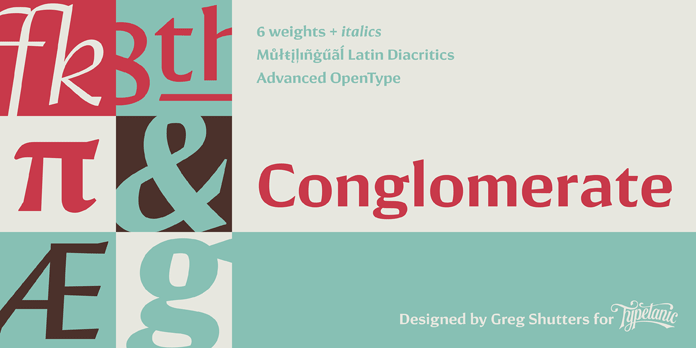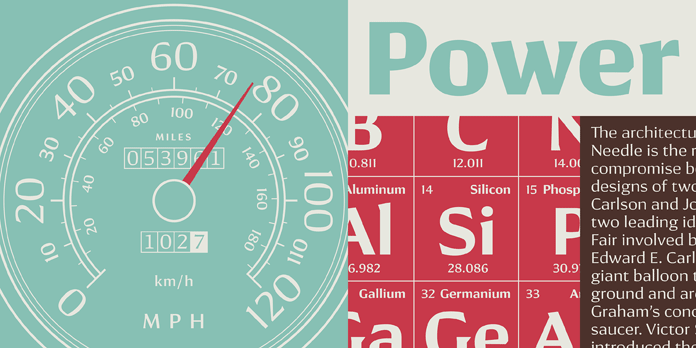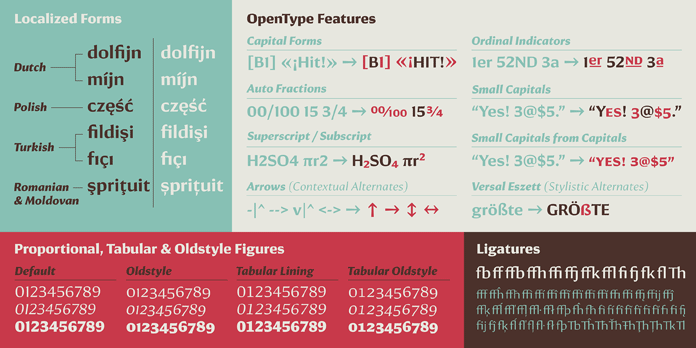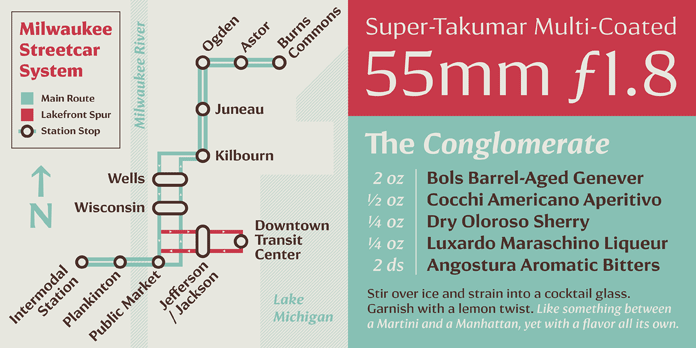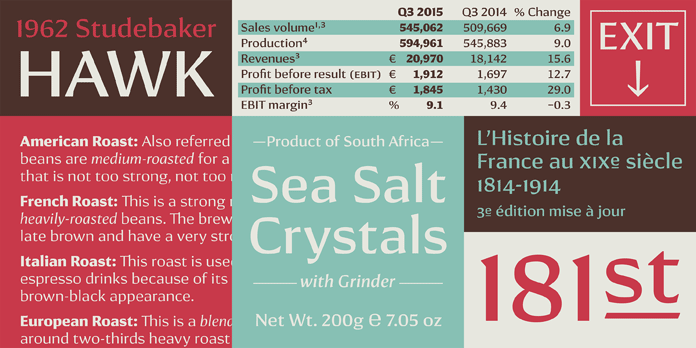
Conglomerate, a unique type family designed by Gregory Shutters for foundry Typetanic Fonts.
Here comes a very special typeface. Gregory Shutters’ Conglomerate font family can be considered as a serif typeface, but wait, it also has aspects of a sans… The font is both edgy and rounded as well as calligraphic but yet geometric. So what is it? Type designer Gregory Shutters says it’s “all and none of these things.” Conglomerate is indeed an unorthodox but yet subtle type family that blends different typographic traits. The result is a unique and versatile typeface with large, open counters that ensure great legibility in both text and display size. Its crisp and clean look is a perfect match for typographic projects that require both a contemporary design with a traditional touch. The full family consists of 6 weights ranging from Light to Black plus true Italics for each weight.
For professional typesetting, Gregory Shutters has equipped the Conglomerate font family with an extensive set of OpenType features including small caps, proportional, tabular, lining, and old style numerals, case-sensitive punctuation, ligatures, arbitrary fractions, localized forms, and elevated, underlined ordinal indicators for English, French, Spanish, Italian, and other languages. To get a closer look at this family, check out the images or follow the link below.